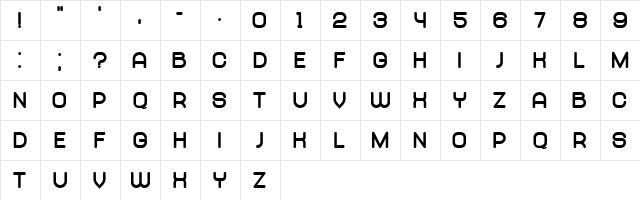
Abandoned Black
Design Context for Abandoned Typeface
Abandoned takes a measured approach to typography — its balanced proportions and neutral character make it a reliable workhorse for both digital and print work.